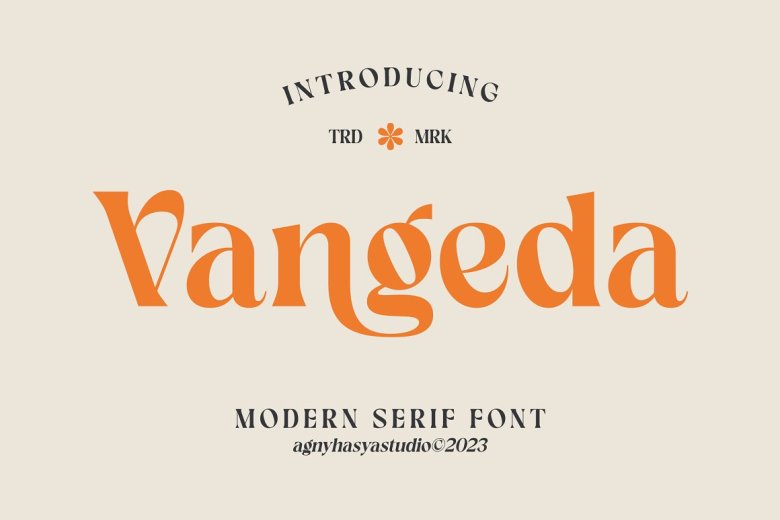
Vangeda Font
Vangeda is a Serif Font, very modern indeed, in regular and italic styles. Thus with specialty sets including alternates and ligatures, Vangeda is totally ready for any kind of design you might want to do!Perfect for your design projects such as corporate branding, logo making, advertising layout design, product package design, stationery and magazine production, book and book title designs,
photography prints art quotes wedding invitations fashion shows ticket designs special events labels etc. product packaging can also be created using the various capabilities of Vangeda. The best way to express your ideas clearly – make them into words.
Vangeda Serif Font